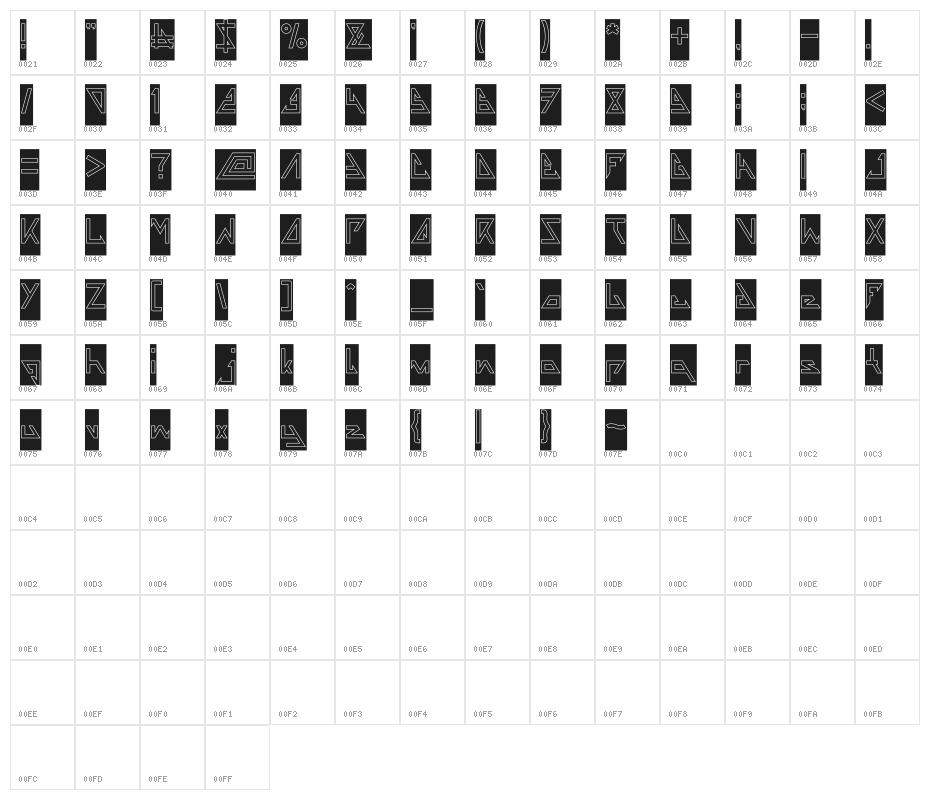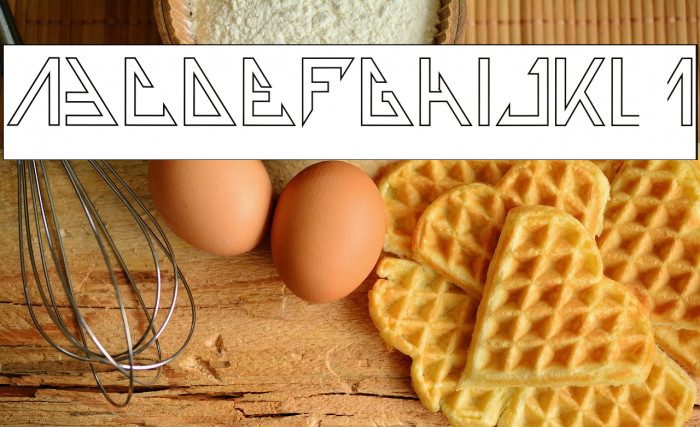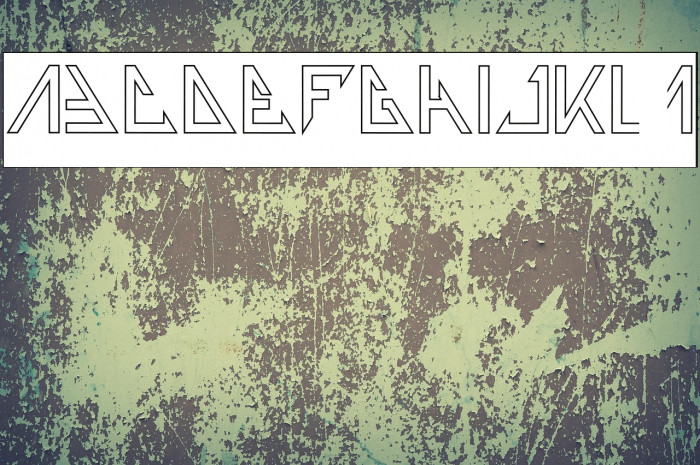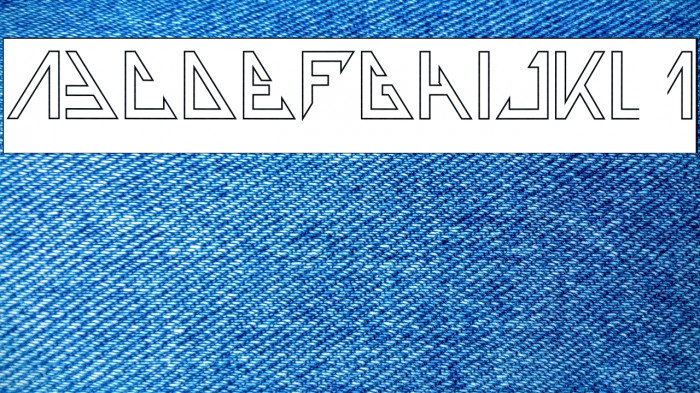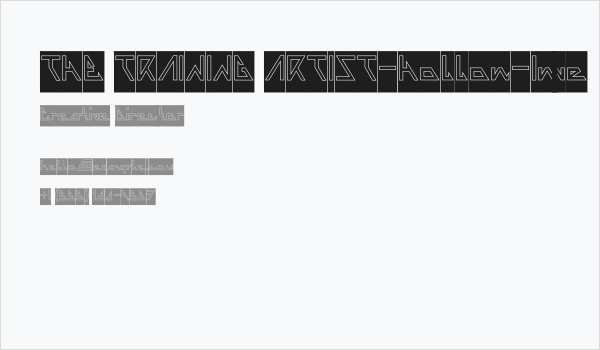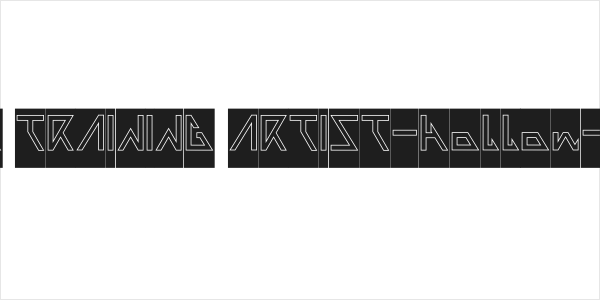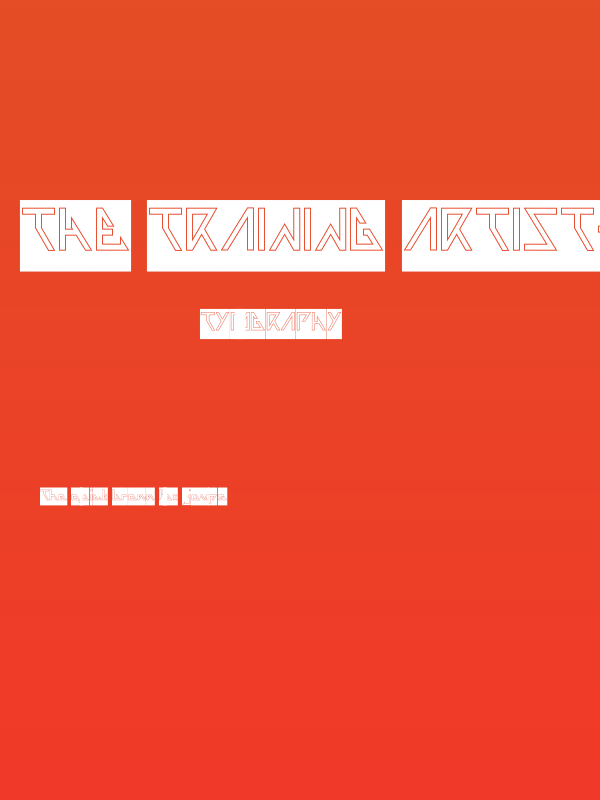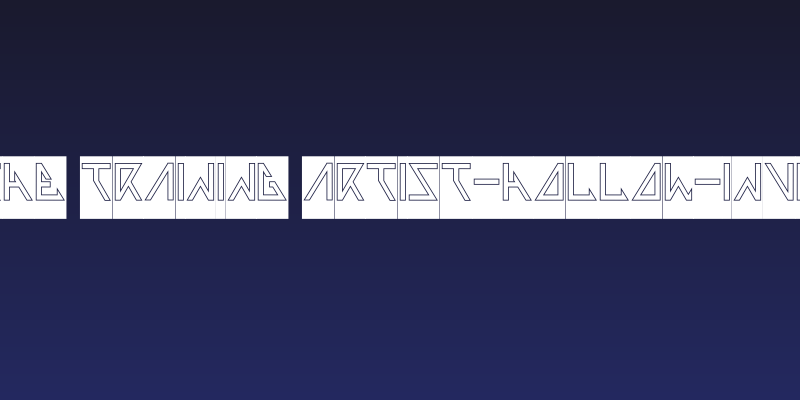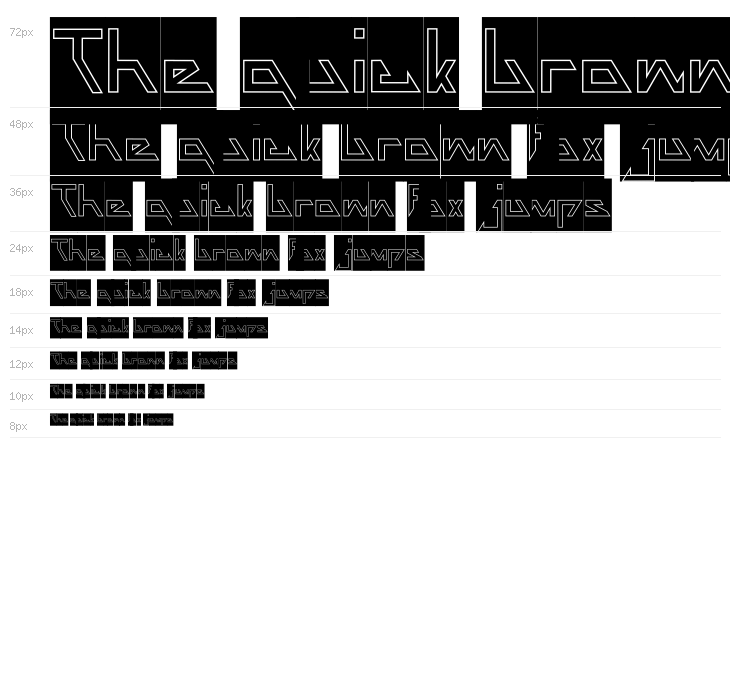
THE TRAINING ARTIST-Hollow-Inve Font
THE TRAINING ARTIST-Hollow-Inve Description
This font features a unique, hollow geometric design with sharp angles and clean lines, creating a futuristic and edgy appearance. The characters are constructed with a consistent line thickness, forming an outline style that gives a sense of depth and dimension. The uppercase and lowercase letters maintain a cohesive look, with angular forms that suggest movement and energy. Numbers and special characters follow the same design principles, ensuring uniformity across all glyphs. This font's distinct style makes it stand out, offering a modern and innovative aesthetic.
| Proposed Projects | Ideal for sci-fi themed projects, modern branding, tech-related designs, and innovative product packaging. |